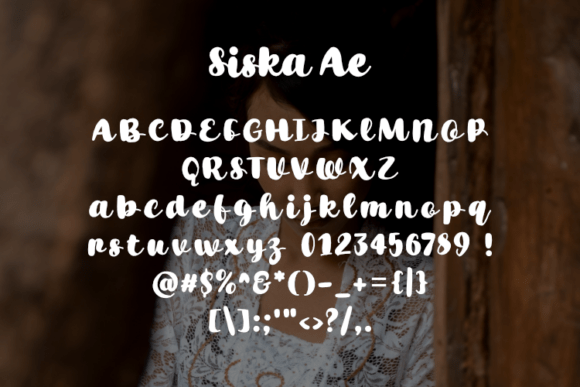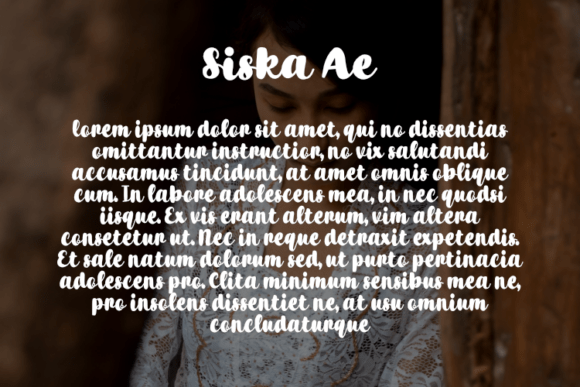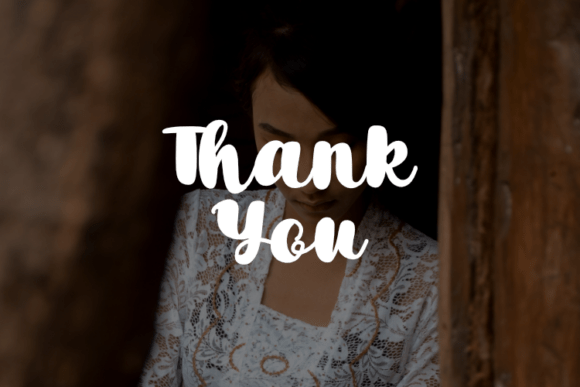
Introduction to Siska Ae Font
Remember that moment when you’re brainstorming ideas for your next design project, and you need a font that perfectly captures the essence of your vision? That’s where Siska Ae Font comes in – a versatile and high-quality design resource that can elevate your creative project to the next level.
Whether you’re designing trendy apparel, t-shirts, or any other product, Siska Ae Font offers a clean, easy-to-read look that effectively communicates your message. And the best part? It’s a free download, making it an accessible and valuable resource for designers of all levels.
With its transparent background and modern aesthetic, Siska Ae Font is the perfect addition to any design project. In this article, we’ll delve deeper into the world of Siska Ae Font and explore its many uses, so you can unlock its full potential and take your designs to the next level.
Key Features of Siska Ae Font
- High-quality font designed for creative projects, ideal for graphic designers and artists
- Transparent background, allowing for seamless integration with various design elements
- Scalable to any resolution, making it suitable for print and digital applications
- Unique, hand-drawn design aesthetic, adding a touch of personality to any creative project
Honest Review: Siska Ae Font
I recently stumbled upon the Siska Ae Font and I must say, it’s a hidden gem in the world of design resources. As a designer, I’m always on the lookout for high-quality fonts that can elevate my creative projects.
- ✨ High-quality design: The Siska Ae Font has a professional look and feel that’s perfect for creative projects.
- ✨ Transparent background: This feature allows for seamless integration with any design element.
- ✨ Versatile: The font is suitable for a wide range of design applications, from logos to typography.
- ⚠️ Limited character set: The font only includes a basic character set, which may not be sufficient for more complex projects.
- ⚠️ No bold or italic options: While the font is well-designed, it lacks the additional styles that many designers rely on.
Overall, I’m impressed with the Siska Ae Font. While it has some limitations, its high-quality design and free download make it a valuable addition to any designer’s toolkit.
Getting the Most Out of Siska Ae Font
To get the most out of the Siska Ae Font, use it in combination with other design elements, such as images and shapes. Experiment with different font sizes, colors, and styles to create a unique and visually appealing design. You can also use the font with a transparent background to create a creative project that stands out.
The Siska Ae Font is a versatile font that can be used in a variety of creative projects, including logos, business cards, and marketing materials. It is also a great font to use for social media graphics, website headers, and other design elements that require a high-quality and creative font.